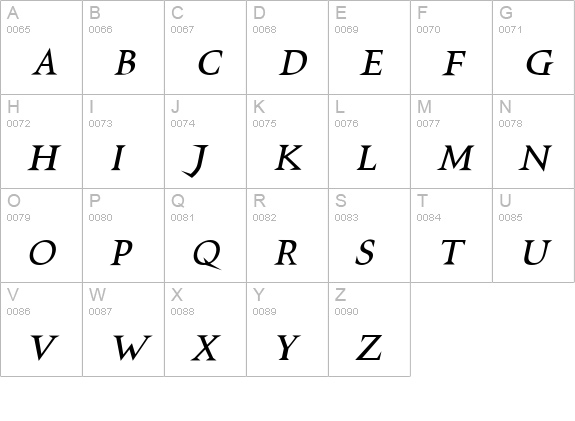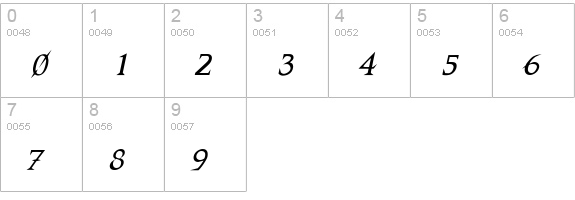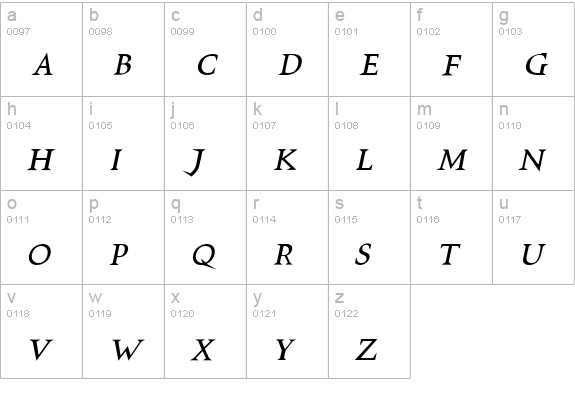
VTCSwitchbladeRomanceItalic Font Details
Introducing VTCSwitchbladeRomanceItalic font, a captivating and elegant typeface that exudes a sense of sophistication and allure. With its gracefully slanted italics, this font adds a touch of enchantment to any design project, making it perfect for romantic, delicate, or feminine themes. Designed with meticulous attention to detail, VTCSwitchbladeRomanceItalic font showcases beautifully tapered strokes and intricate curves that create an exquisite visual rhythm. Its slender yet legible letterforms effortlessly flow across the page, evoking a sense of grace and elegance. This versatile font can be used for a variety of purposes, including branding, editorial design, invitations, packaging, and more. Its timeless appeal ensures that it will remain a stylish choice for years to come, effortlessly capturing attention and leaving a lasting impression. The best part? VTCSwitchbladeRomanceItalic font is available for free download at FontsMarket.com. Whether you're a professional designer or simply someone with a passion for typography, you can now effortlessly enhance your projects with this stunning typeface. Don't miss out on the opportunity to add a touch of romance and sophistication to your designs – download VTCSwitchbladeRomanceItalic font today and let your creativity soar.